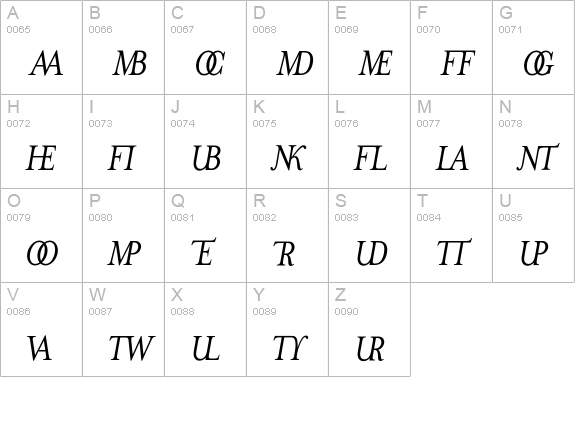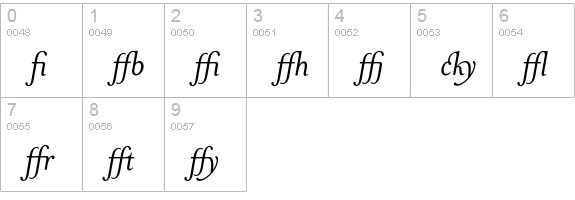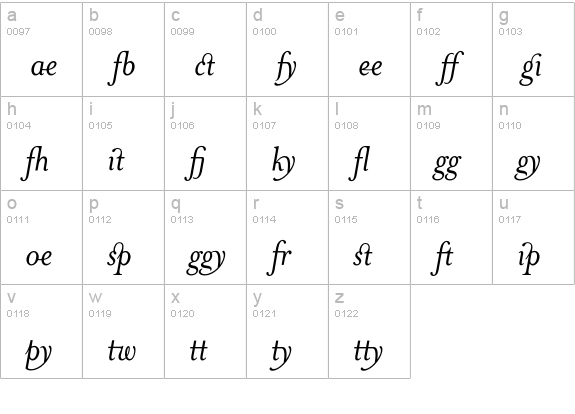
MrsEavesJustLigItalic Font Details
MrsEavesJustLigItalic is a stylish and elegant font that exudes sophistication and charm. With its delicate italic form and graceful ligatures, this typeface is perfect for adding a touch of refinement to your designs. The flowing curves and subtle serifs of MrsEavesJustLigItalic create a sense of timeless beauty that will elevate any project. And the best part? MrsEavesJustLigItalic is available for free download at FontsMarket.com. Simply visit the website to access this stunning font and enhance your creations with its unique flair. Embrace the beauty and versatility of MrsEavesJustLigItalic to bring a touch of class to your typography.